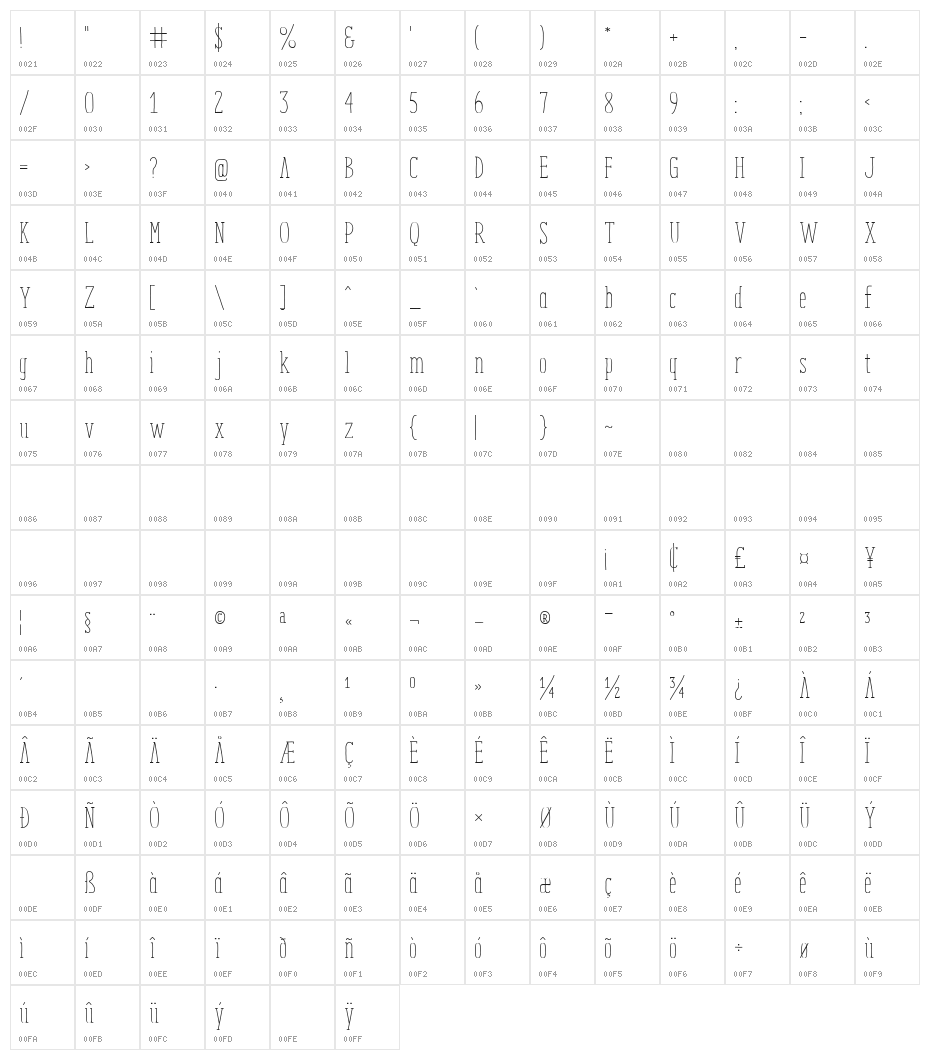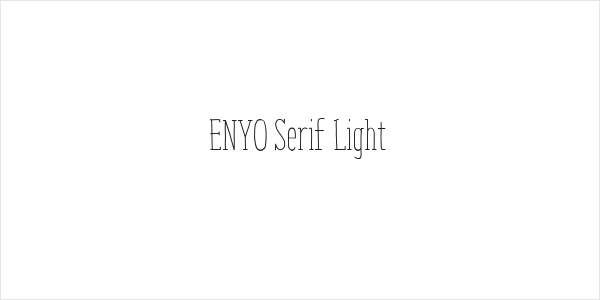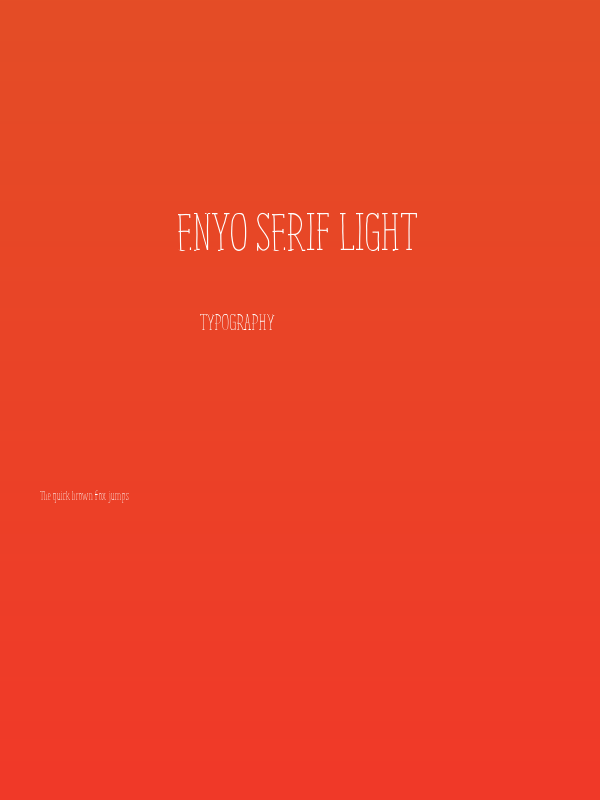
ENYO Serif Light Font
ENYO Serif Light Description
This font features a refined and elegant serif style with thin, elongated strokes that give it a light and airy appearance. The characters are tall and narrow, with a subtle sophistication that is both modern and timeless. The serifs are delicate, adding a touch of classic elegance without overwhelming the overall design. The font maintains a consistent stroke width, contributing to its light weight and graceful presence. It is well-suited for projects that require a touch of class and readability, making it ideal for both digital and print media.
| Proposed Projects | Ideal for editorial design, book covers, elegant invitations, and sophisticated branding projects. |